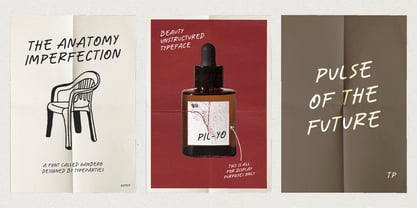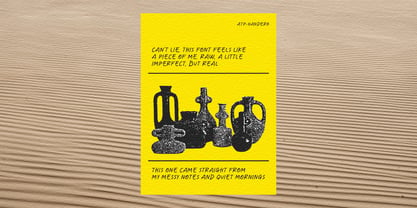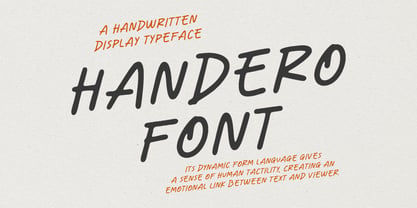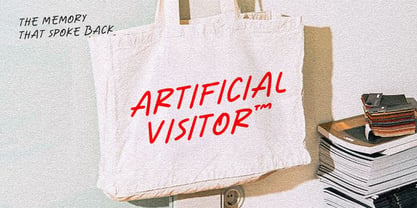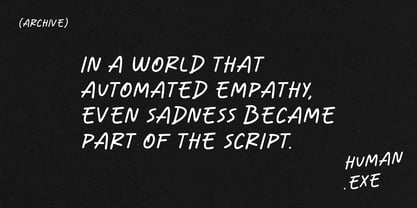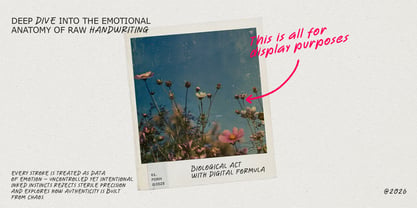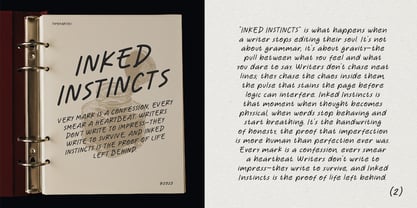
The ATP Handero Font Family was designed by Thufail Al ghifary and published by Typeparties. ATP Handero contains 1 styles. More about this family
Handero Font is inspired by the spontaneity of messy notes and quiet mornings, embodying a raw handwritten rhythm that feels both honest and organic. Each stroke reflects the subtle chaos that often precedes a burst of creativity. This font is ideal for personal projects, branding visuals, packaging, and any design that requires a human, expressive touch. Handero infuses your designs with warmth, naturalness, and a unique character, making it a standout choice for those seeking to convey authenticity and emotion in their work.
A type foundry driven by curiosity, artistry, and the love of imperfection. We believe that not all beauty lies in perfect symmetry sometimes, it’s in the raw, unpolished strokes that a true personality shines through. Our fonts are crafted with a sense of freedom and spontaneity, celebrating irregularities that make each character feel alive.We’re not here to play safe with type. We’re here to break the grid, bend the rules, and let letters breathe the way they want. Our fonts are raw, unapologetic, and full of attitude crafted from strokes that refuse to be caged by perfection. In every curve, every jagged edge, there’s a story of freedom.A BEAUTY OF UNDISTRUCTURE TYPEFACE